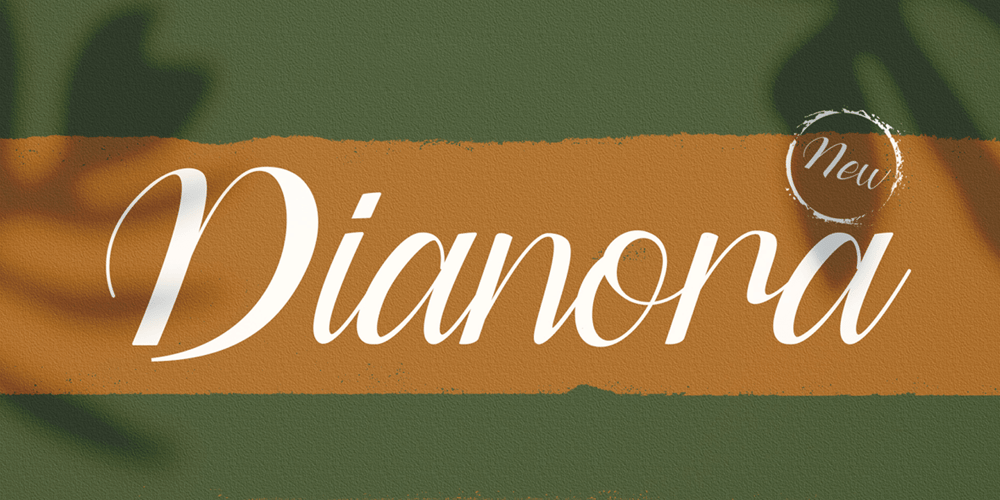
Dianora Font Family was designed by Virgiawan Listanto and published by Stringlabs Creative Studio. Dianora contains 1 styles and family package options. Dianora is a Script Font with Lovely Handwritten Calligraphy Style. Dianora is an equally elegant and authentic script, full of love. Use it to add a romantic spark to any design project!.